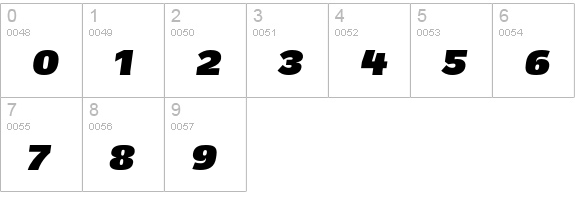
Exert-BlackItalic is a striking and elegant font that exudes sophistication and modernity. Its bold and italicized design adds a touch of flair to any project, making it perfect for headlines, titles, and branding materials. The sleek and contemporary look of Exert-BlackItalic commands attention and leaves a lasting impression on the viewer. What's even better is that Exert-BlackItalic is available for free download at FontsMarket.com, allowing you to easily access and use this stylish font in your design projects without any cost. Whether you're working on a logo, website, poster, or any other creative endeavor, Exert-BlackItalic is sure to elevate your work and give it a professional and polished touch. Download this impressive font today and add a touch of sophistication to your next project.